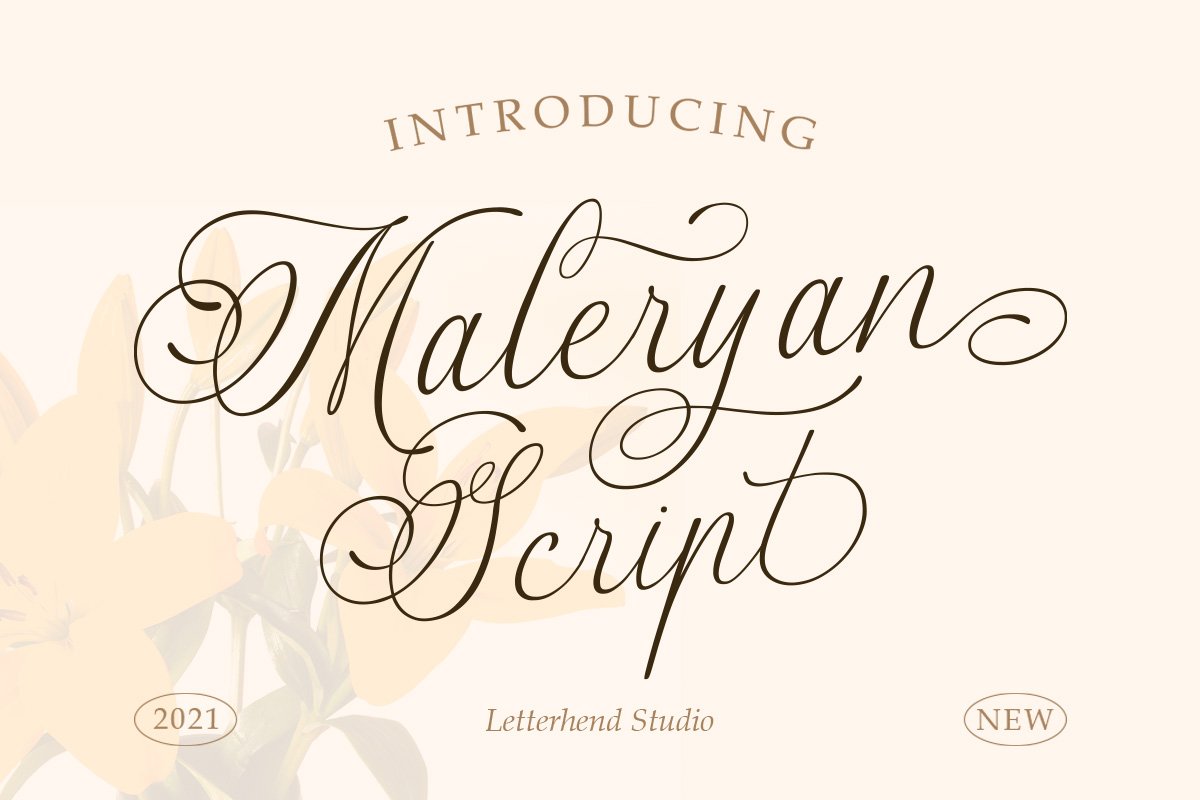
About the Maleryan Script Modern Calligraphy
Maleryan is a beautiful modern calligraphy script based on manual hand writing, The natural flow with the swashes make this font looks even more prettier, This type of font perfectly made to be applied especially in wedding invitation, labels, logos, magazines, books, greeting / wedding cards, packaging, fashion, make up, stationery, novels, labels or any type of advertising purpose